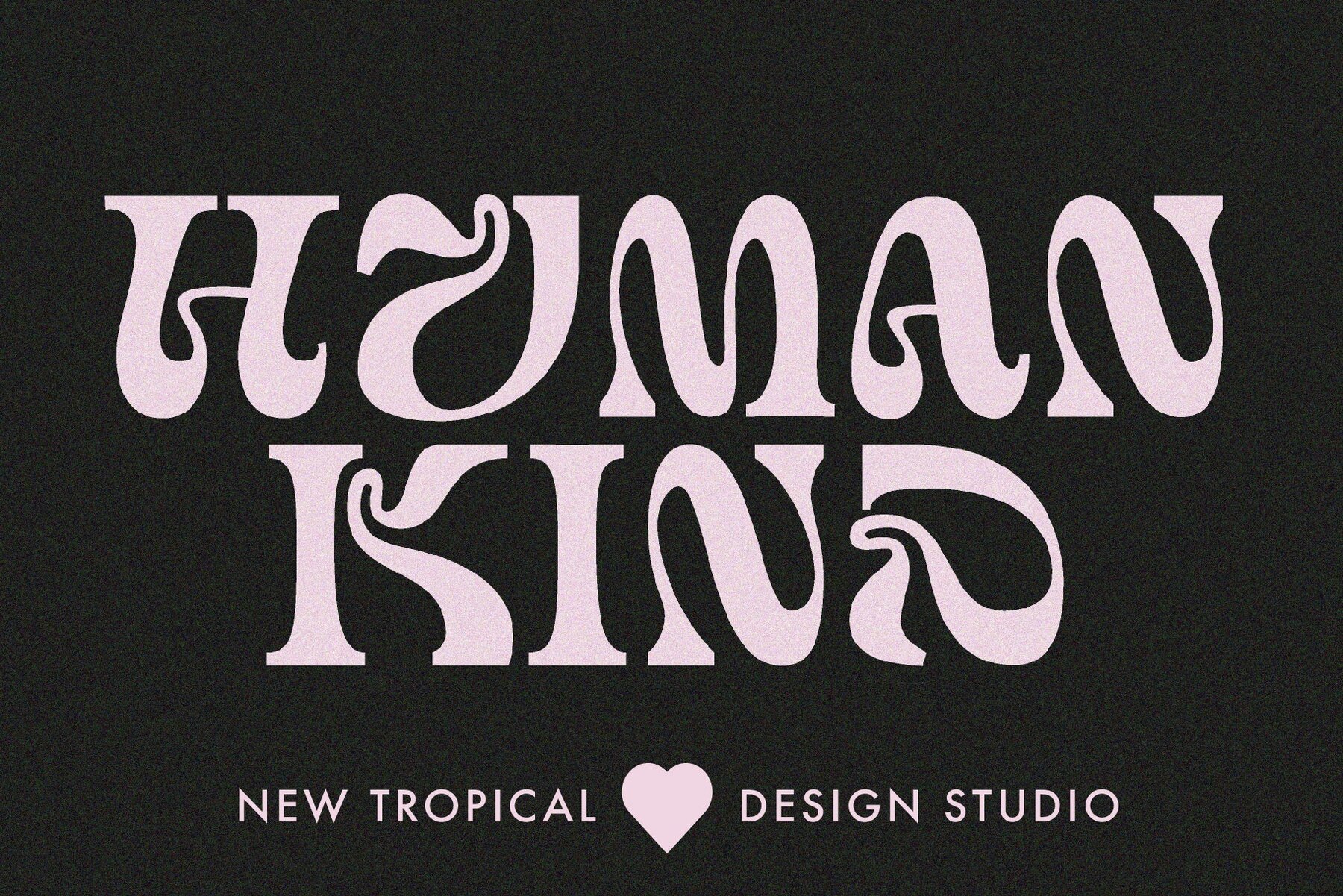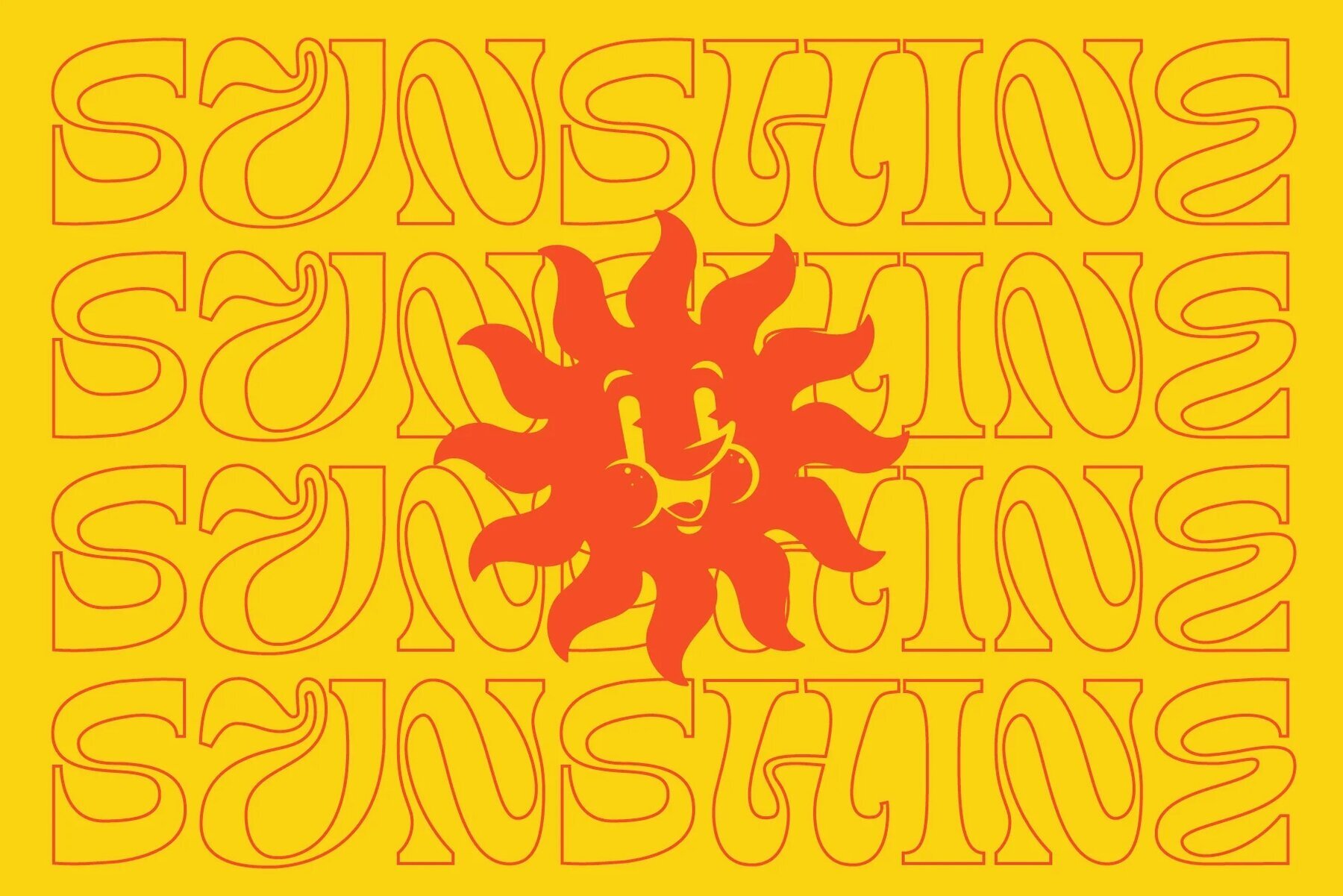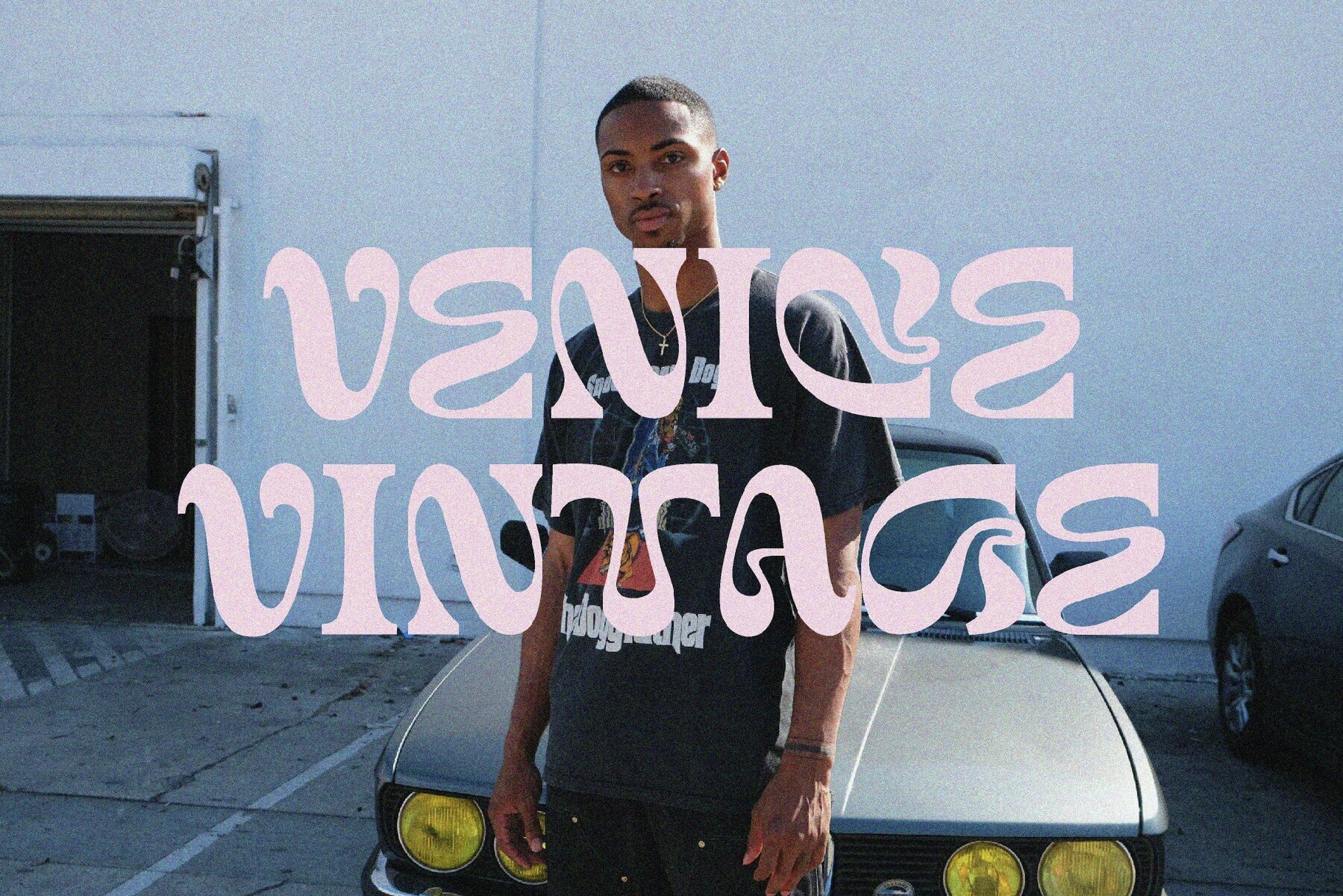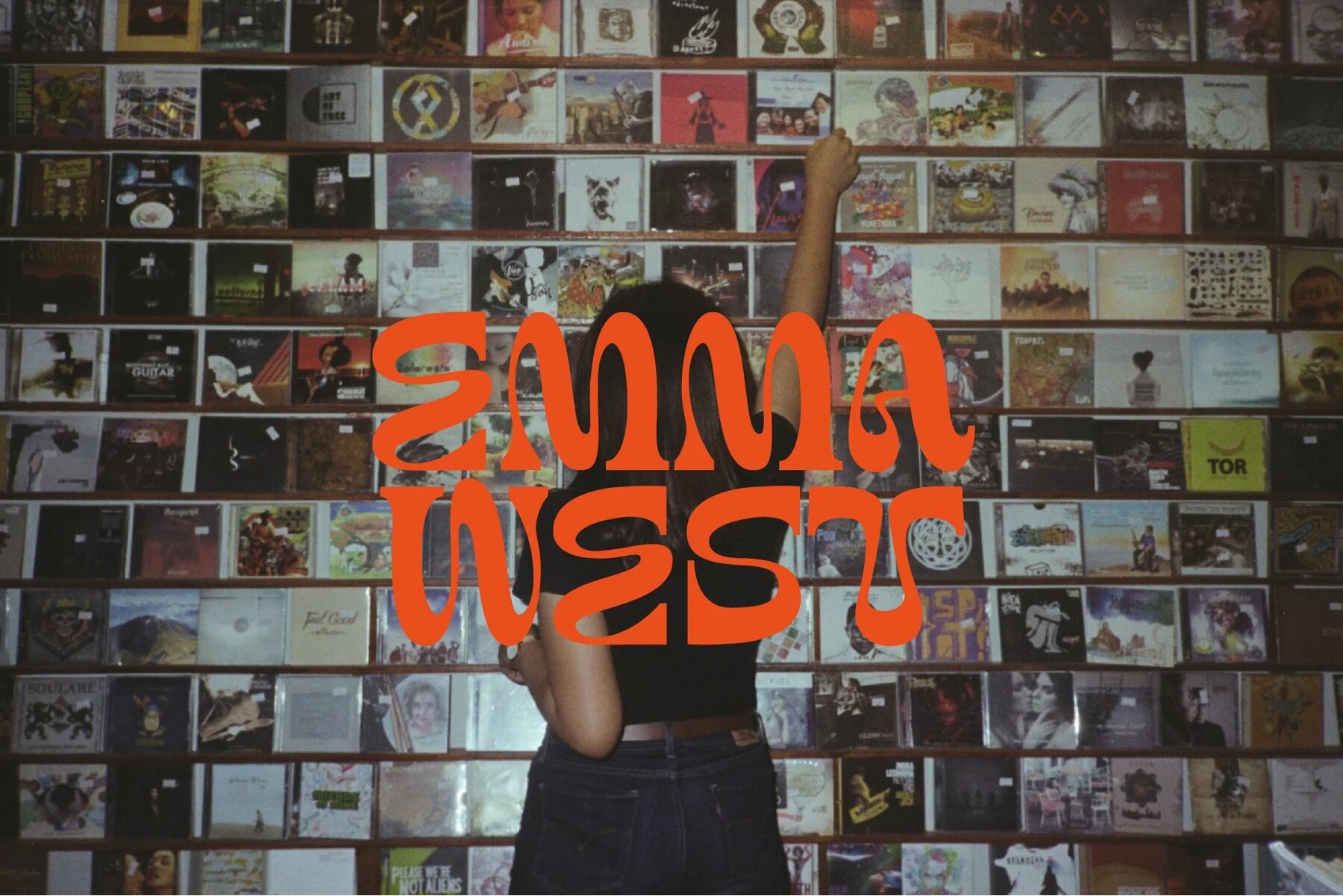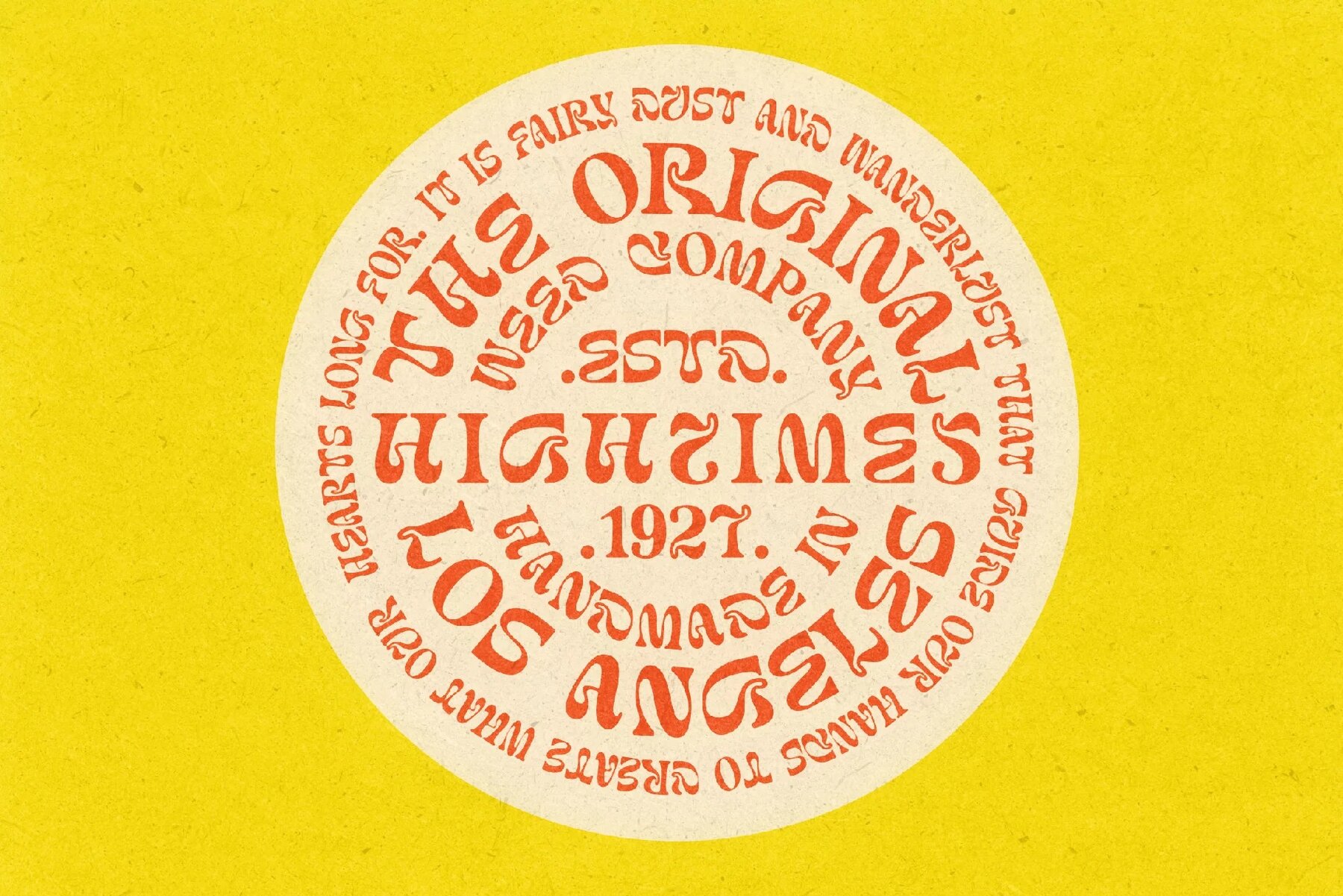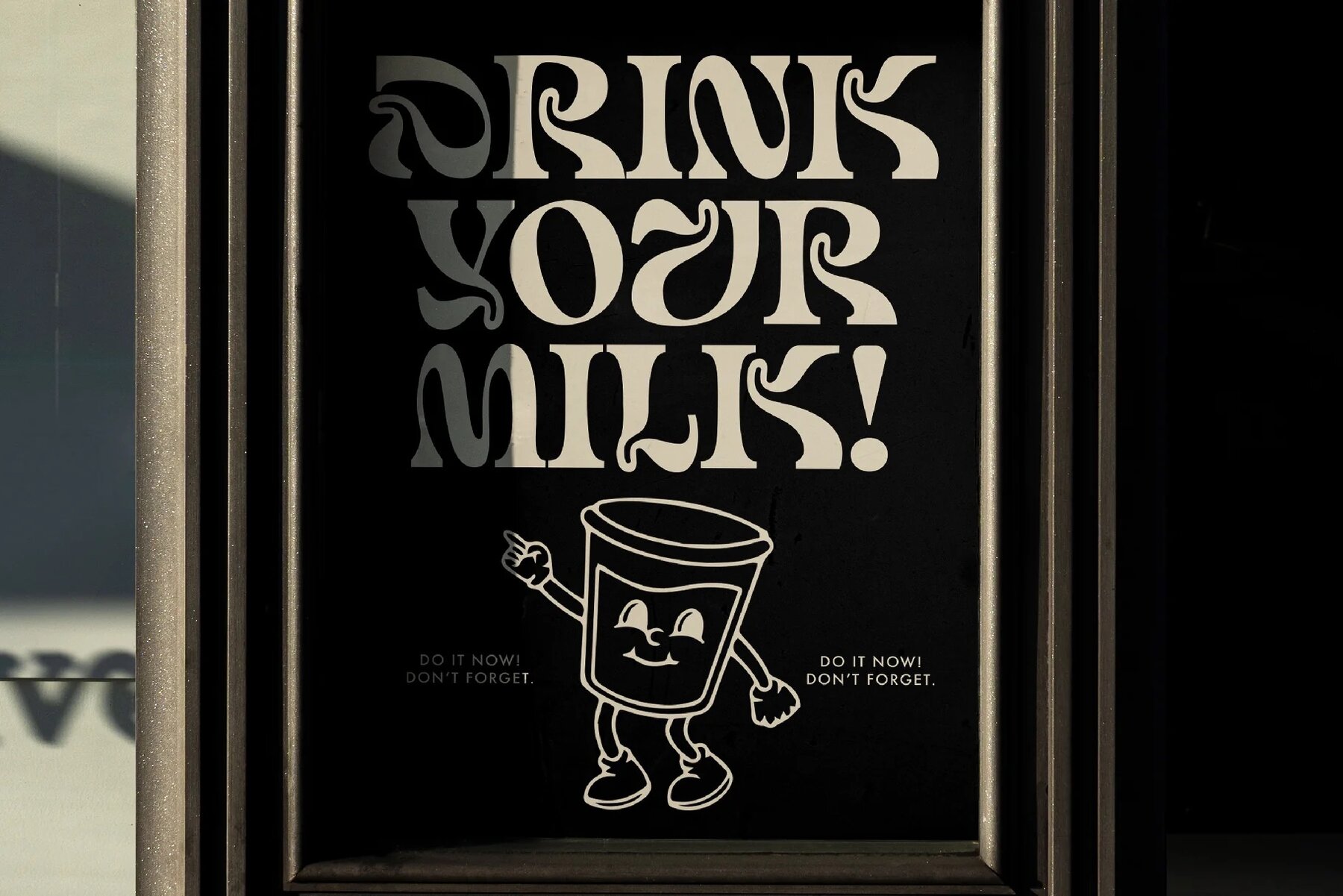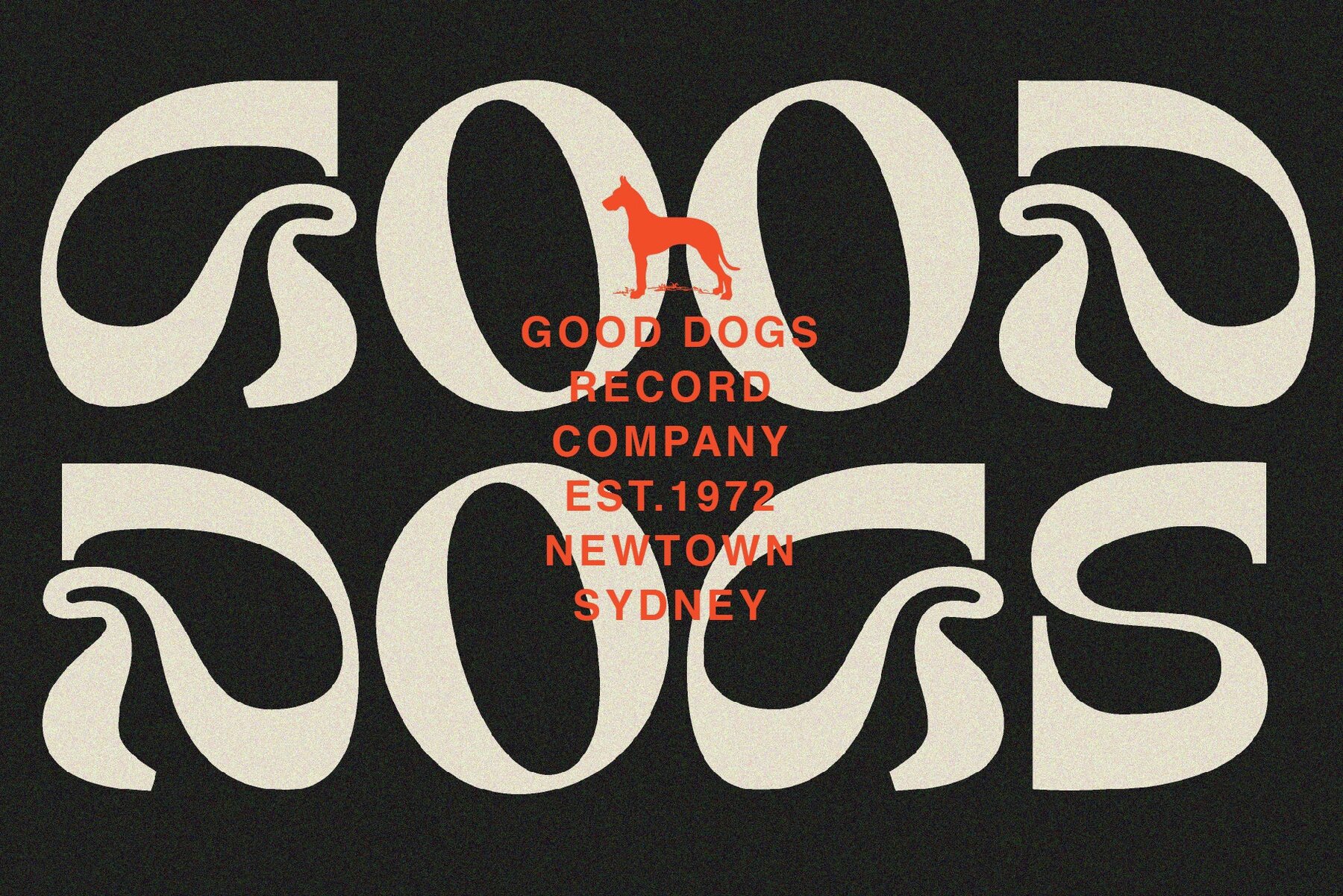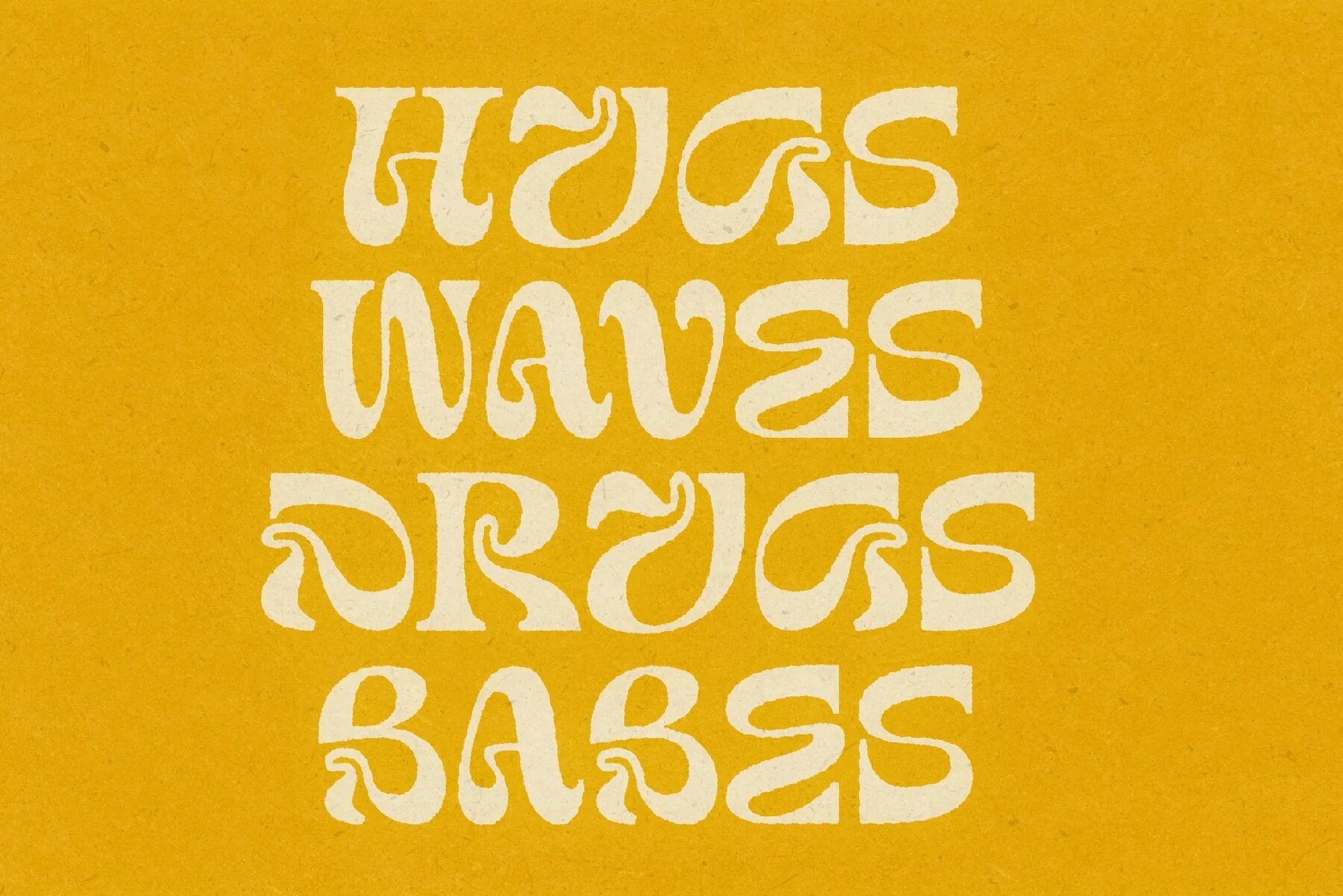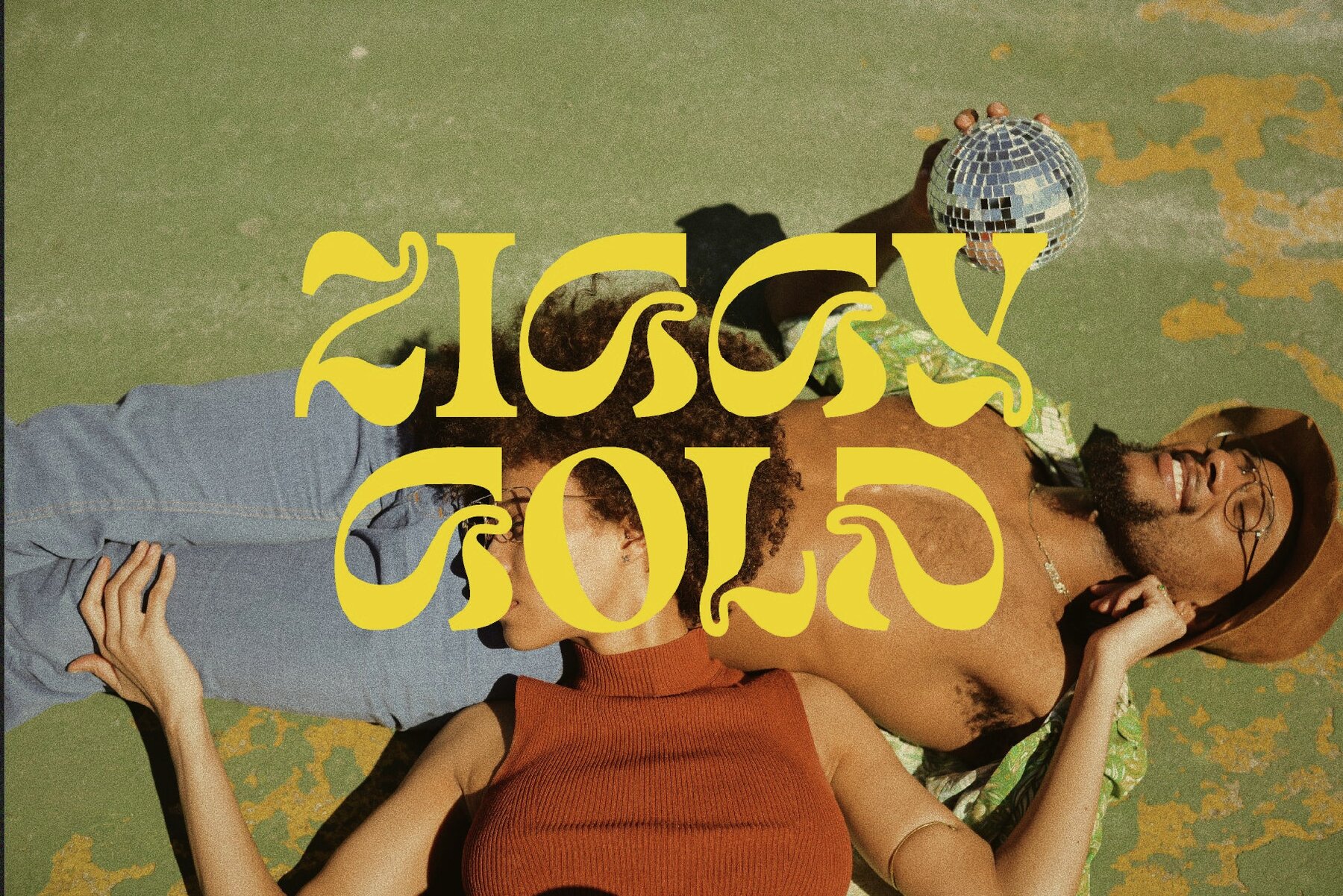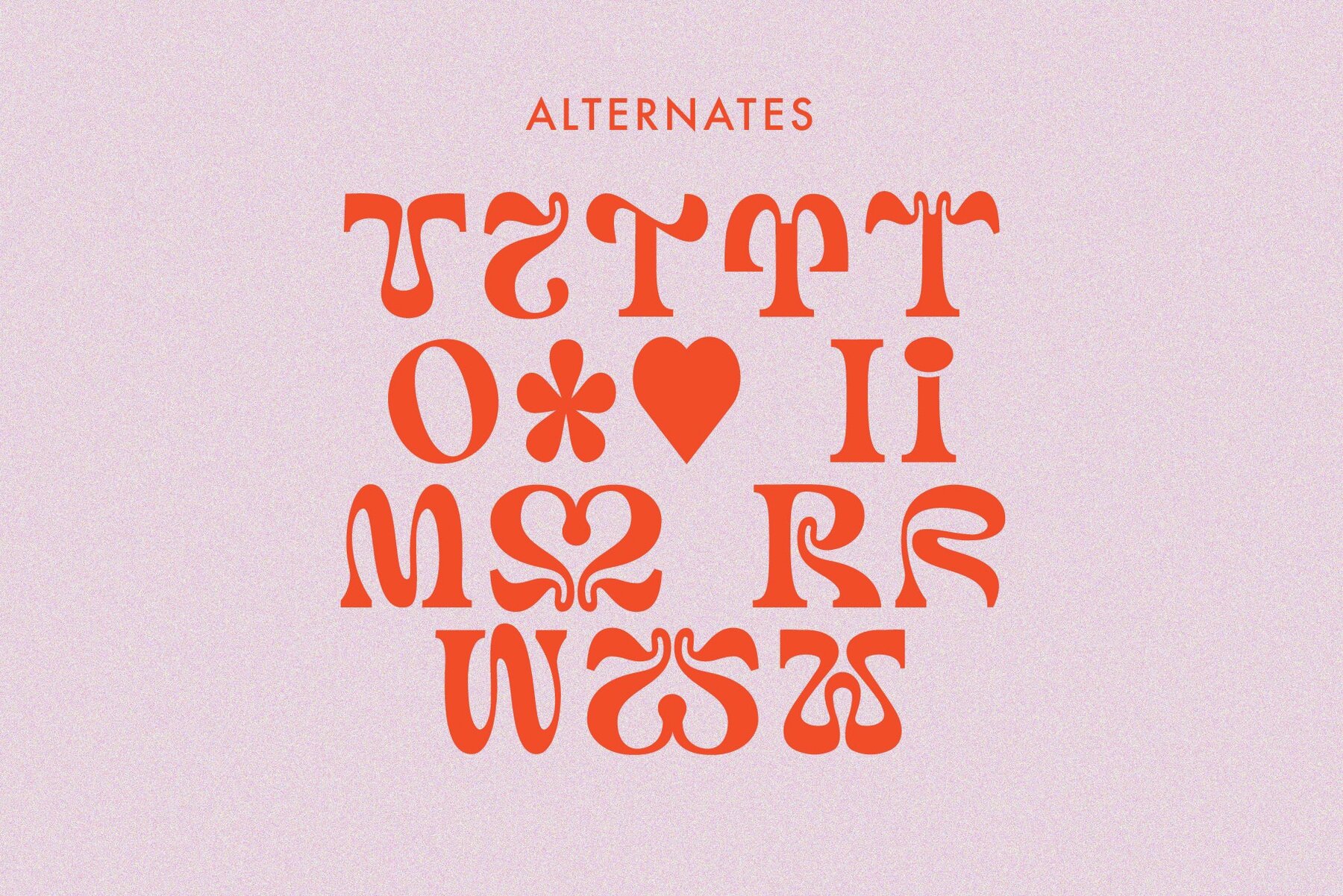
Humankind 1
Humankind is an experimental typeface with radical curves. Unique tripped out lettering makes this font perfect for those groovy band poster, hippy logos and quotes. Humankind mixes futurist letters with nostalgic curves to create stand out typography. Including lots of alternate letters!